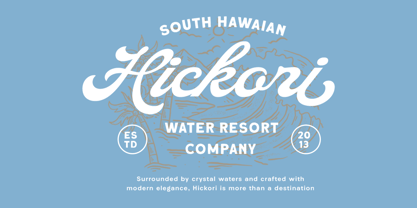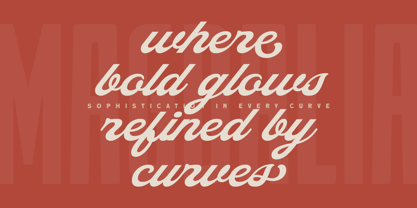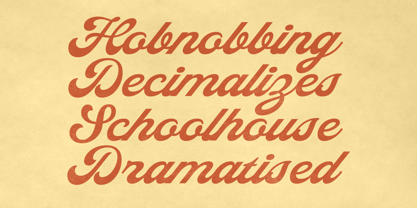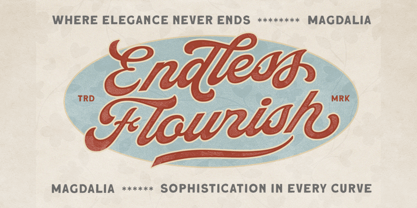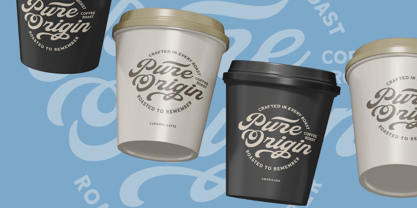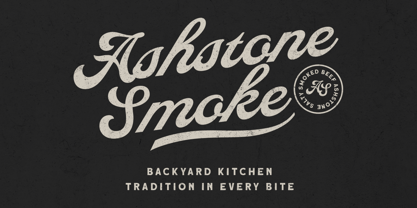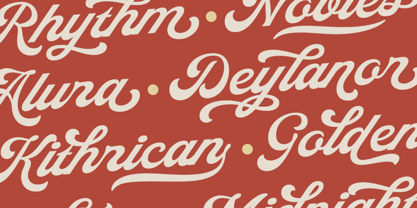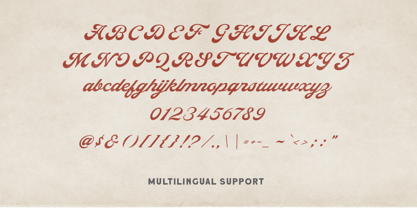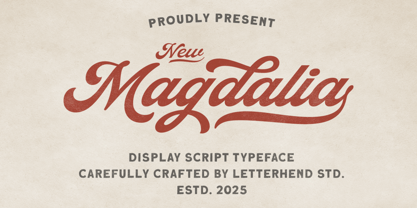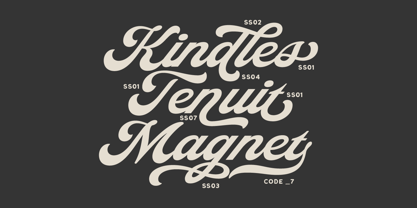
Magdalia
The Magdalia Font Family was designed by Hendry Juanda and published by Letterhend. Magdalia contains 1 styles. More about this family
Magdalia is a vintage display script font that blends retro charm with a modern handcrafted touch. Its flowing strokes and stylish swashes make it perfect for logos, packaging, posters, apparel, or any design that wants to feel strong, classic, and full of personality. Features : Uppercase & lowercase, Numbers and punctuation, Alternates/Ligatures, Multilingual Support & PUA encoded